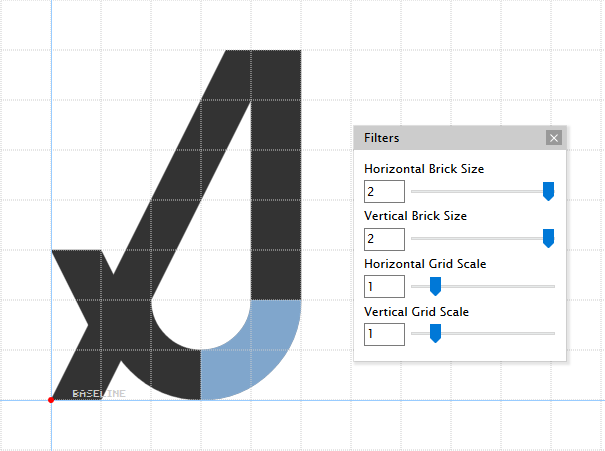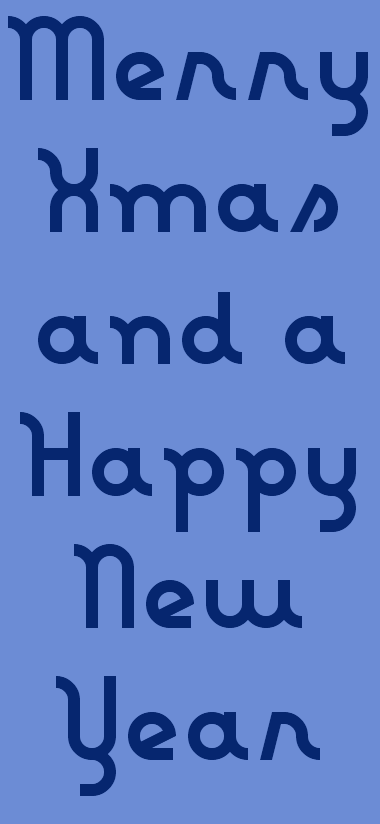
• The kerning sucks, but it's such a tight grid there isn't much I can do. The lowercase o is a perfect circle of 4 macaroni bricks. That gives me an x-height of 4 bricks which made some letters a bit difficult...I'm looking at you lowercase s.
Nice cursive font. I really like the J and the Q. Great job, as usual, aphoria.
Interesting take on the monoline upright script genre! 10/10
Lovely work! This here is how you do a lot with a little. And Mr. Lowercase S turned out pretty nice in spite of how hard it was lol :P
I used 2x2 filters, but no composites (at least, I don't think so). Mostly the four macaroni bricks and straight vertical and horizontal bricks, with a few angled bricks. Do you have any specific questions?
Here is the S: